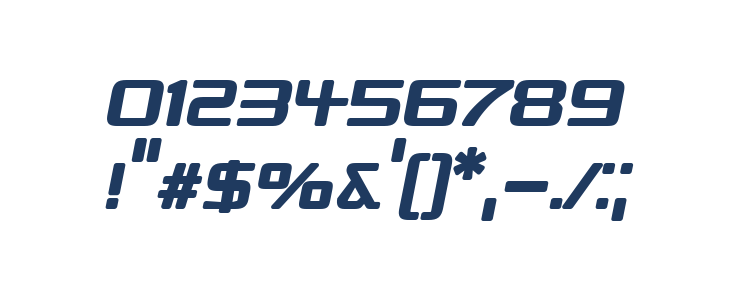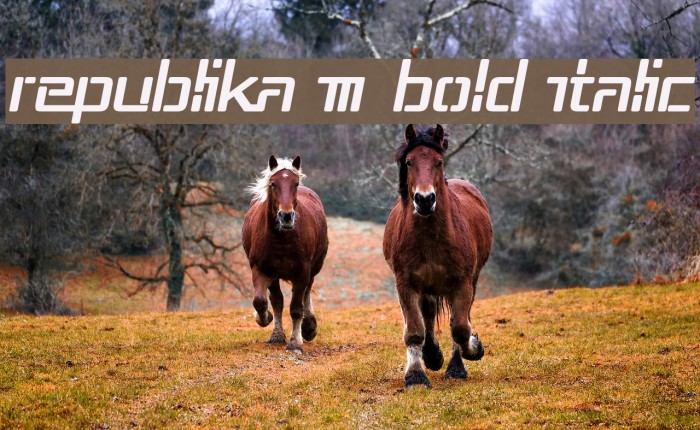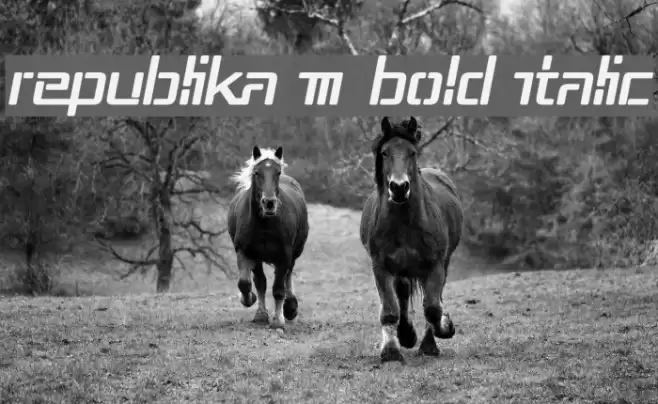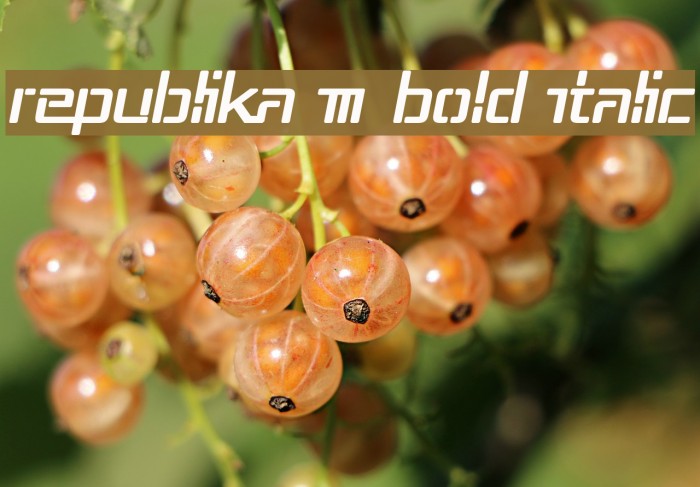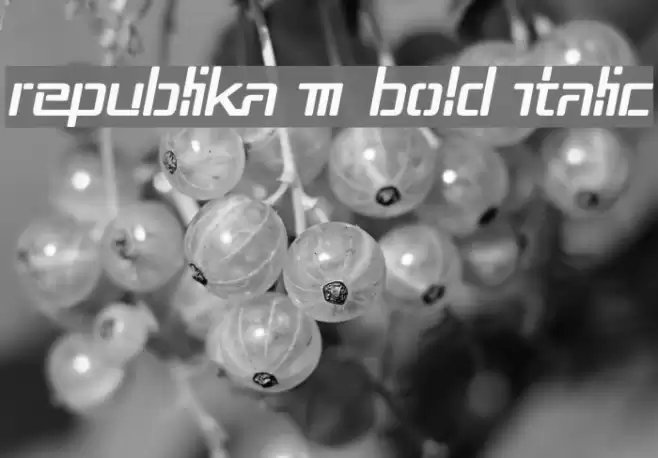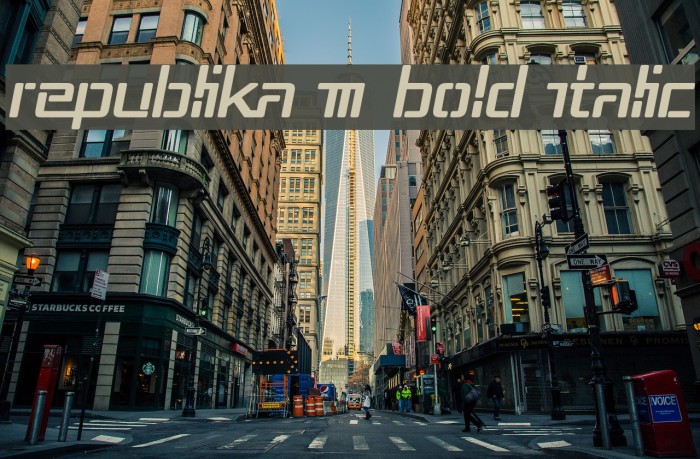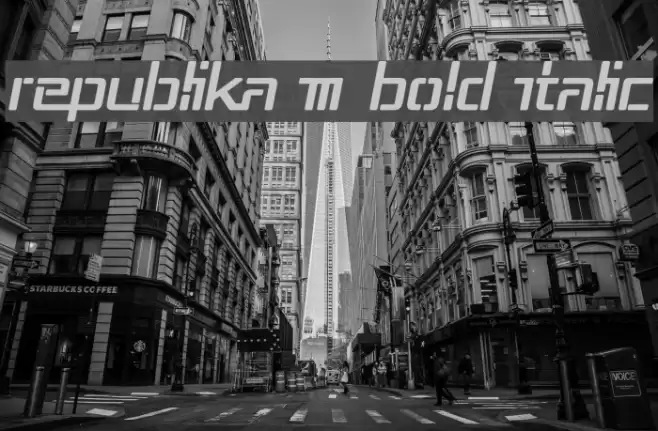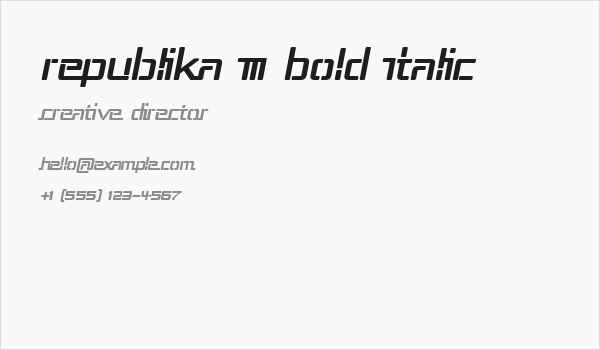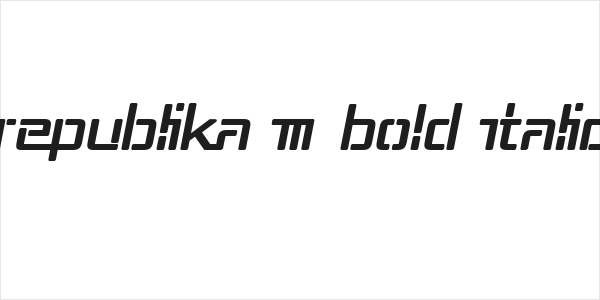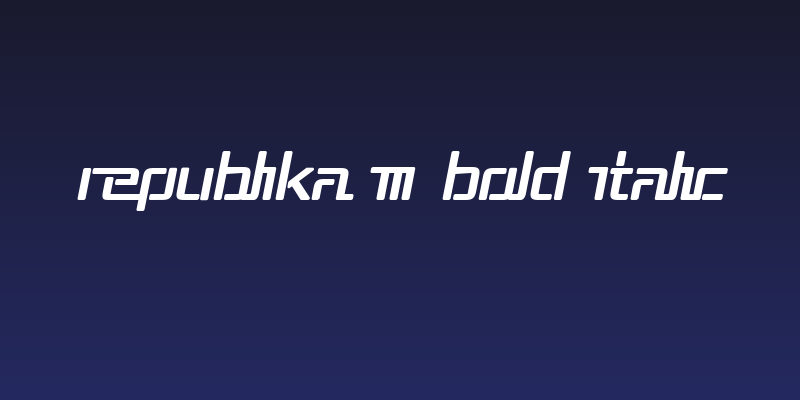
Republika III Bold Italic Font
Republika III Bold Italic Description
This font features a bold and italicized style with a modern, futuristic aesthetic. The characters are designed with a geometric structure, incorporating sharp angles and clean lines. The uppercase and lowercase letters maintain a consistent height, contributing to a uniform appearance. The numerals and special characters follow the same design principles, ensuring a cohesive look across all glyphs. The font's bold weight and italic slant add a dynamic and energetic feel, making it suitable for attention-grabbing applications. The spacing between characters is tight, enhancing the compact and streamlined look.